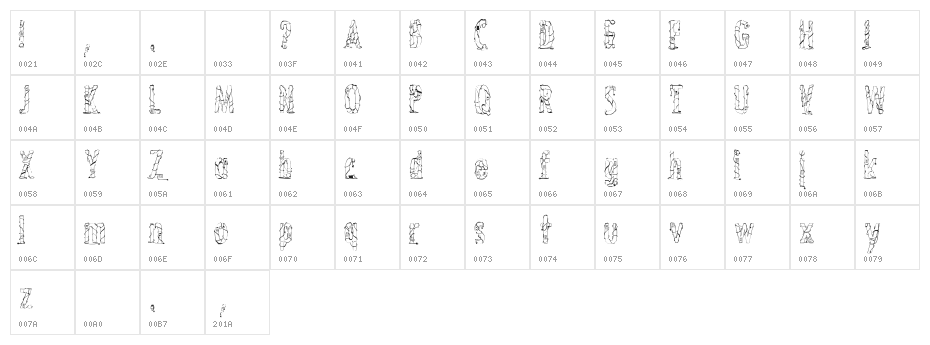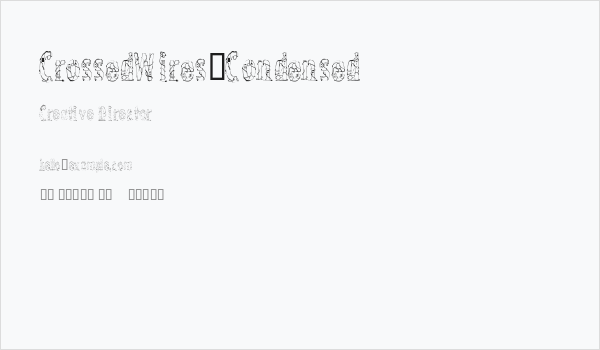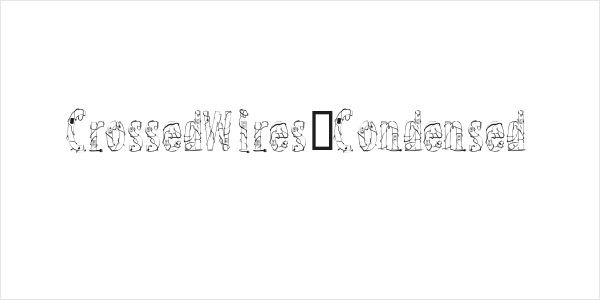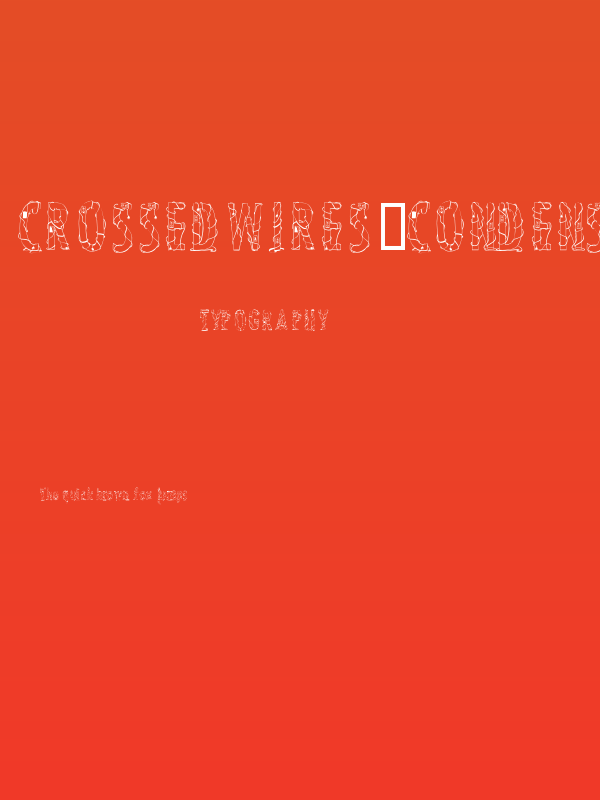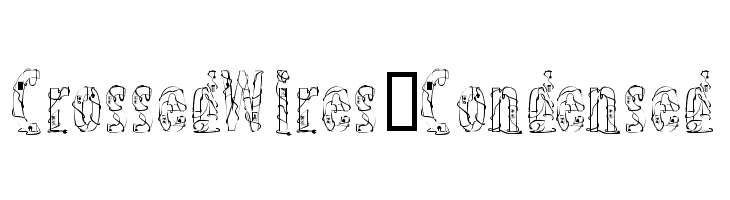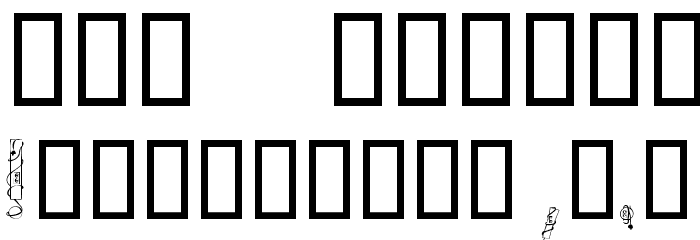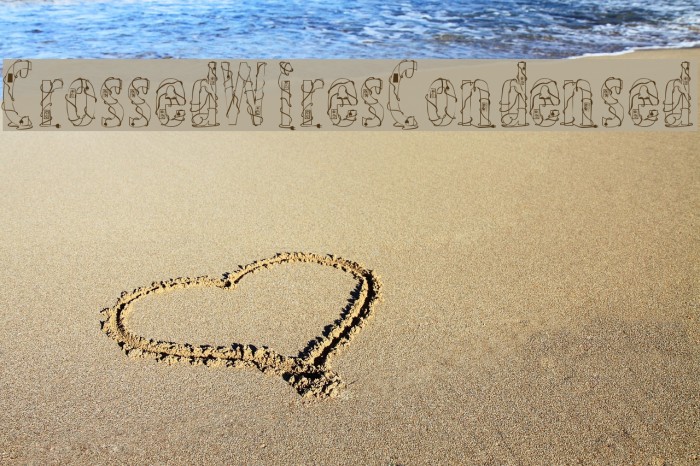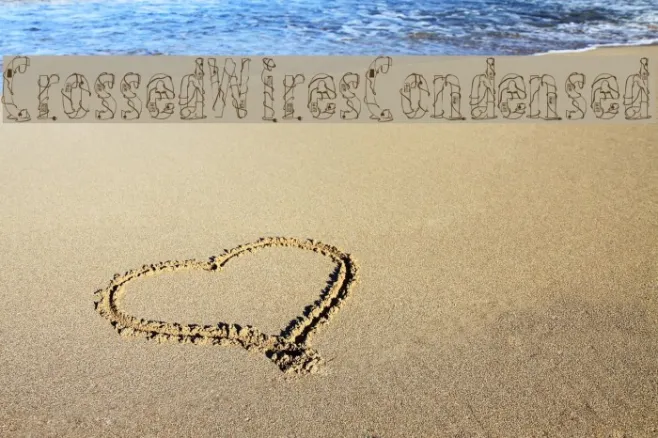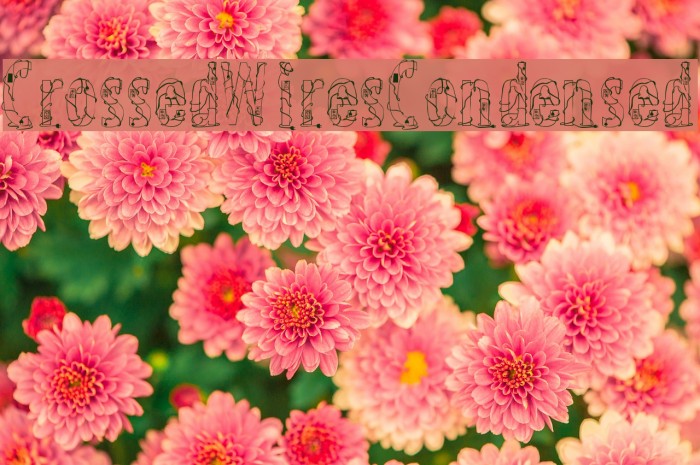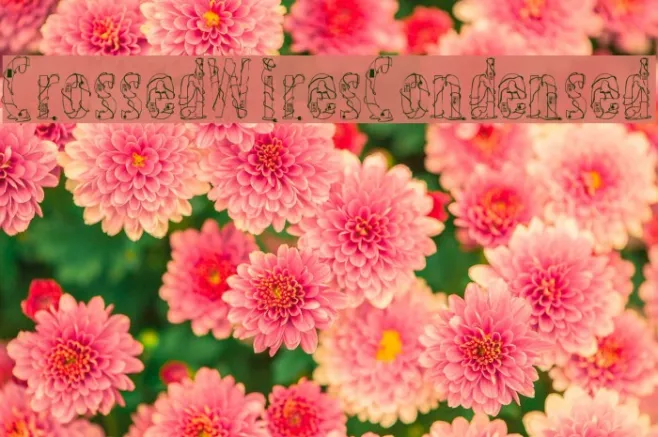
CrossedWires-Condensed Font
CrossedWires-Condensed Description
This font features a unique and playful design where each character is intertwined with wire-like elements, creating a sense of movement and complexity. The letters are constructed with a combination of straight and curved lines, giving them a dynamic and intricate appearance. The uppercase and lowercase letters maintain a consistent style, with the wires wrapping around each character in a cohesive manner. The numbers and special characters follow the same design principle, ensuring uniformity across the entire typeface. This font is visually striking and ideal for projects that require a creative and unconventional look.
| Proposed Projects | Ideal for creative projects such as posters, album covers, and branding that require a unique and eye-catching typeface. |